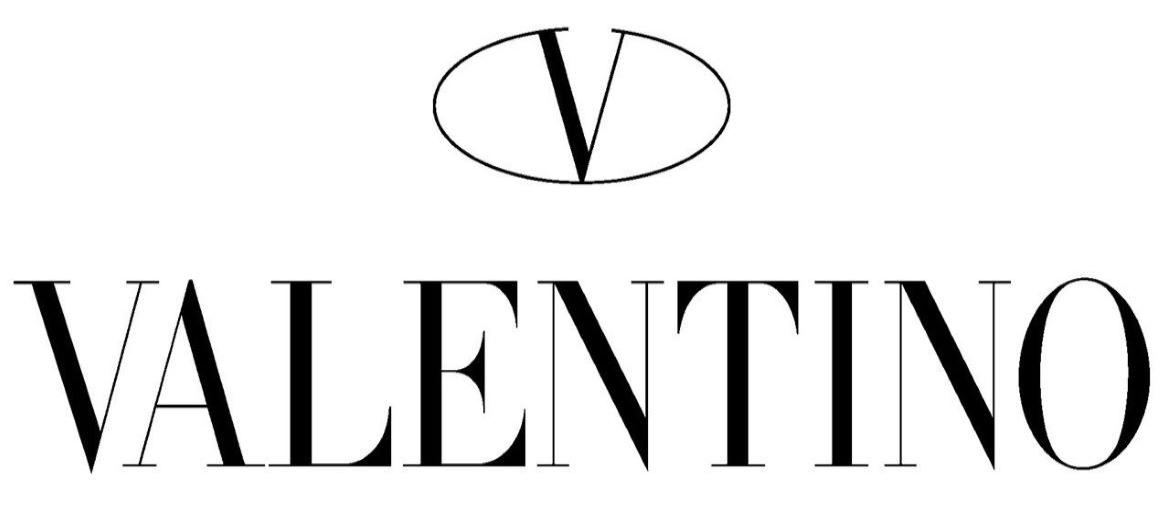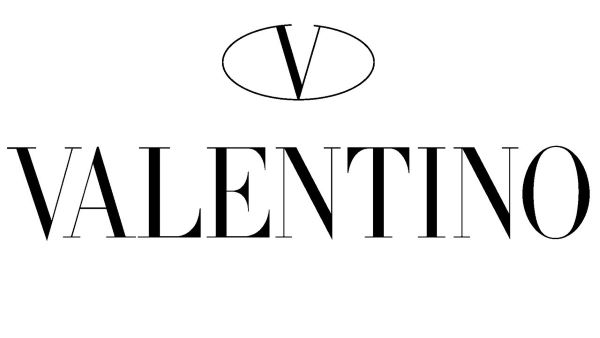
Valentino Font
What Font is Valentino?
The Valentino font is most closely associated with IvyBodoni, a refined commercial typeface known for its elegant high-contrast strokes and timeless luxury aesthetic. Its sharp serifs and graceful vertical structure mirror the sophistication of Valentino’s brand identity, creating a look that feels both classic and couture. While IvyBodoni is a paid font, we also found a free alternative font that captures a similar sense of high fashion, making it suitable for those who want to recreate the Valentino style without purchasing the commercial typeface.
About Valentino
Valentino is one of Italy’s most celebrated luxury fashion houses, renowned for its exquisite craftsmanship, romantic silhouettes, and signature use of vibrant red. Founded by Valentino Garavani in the 1960s, the brand quickly became a staple of haute couture, dressing royalty, celebrities, and style icons around the world. Over the decades, Valentino has evolved while maintaining its core identity of opulence and refinement. Today, the house continues to set trends with its modern yet timeless designs, blending bold artistic expression with impeccable tailoring.